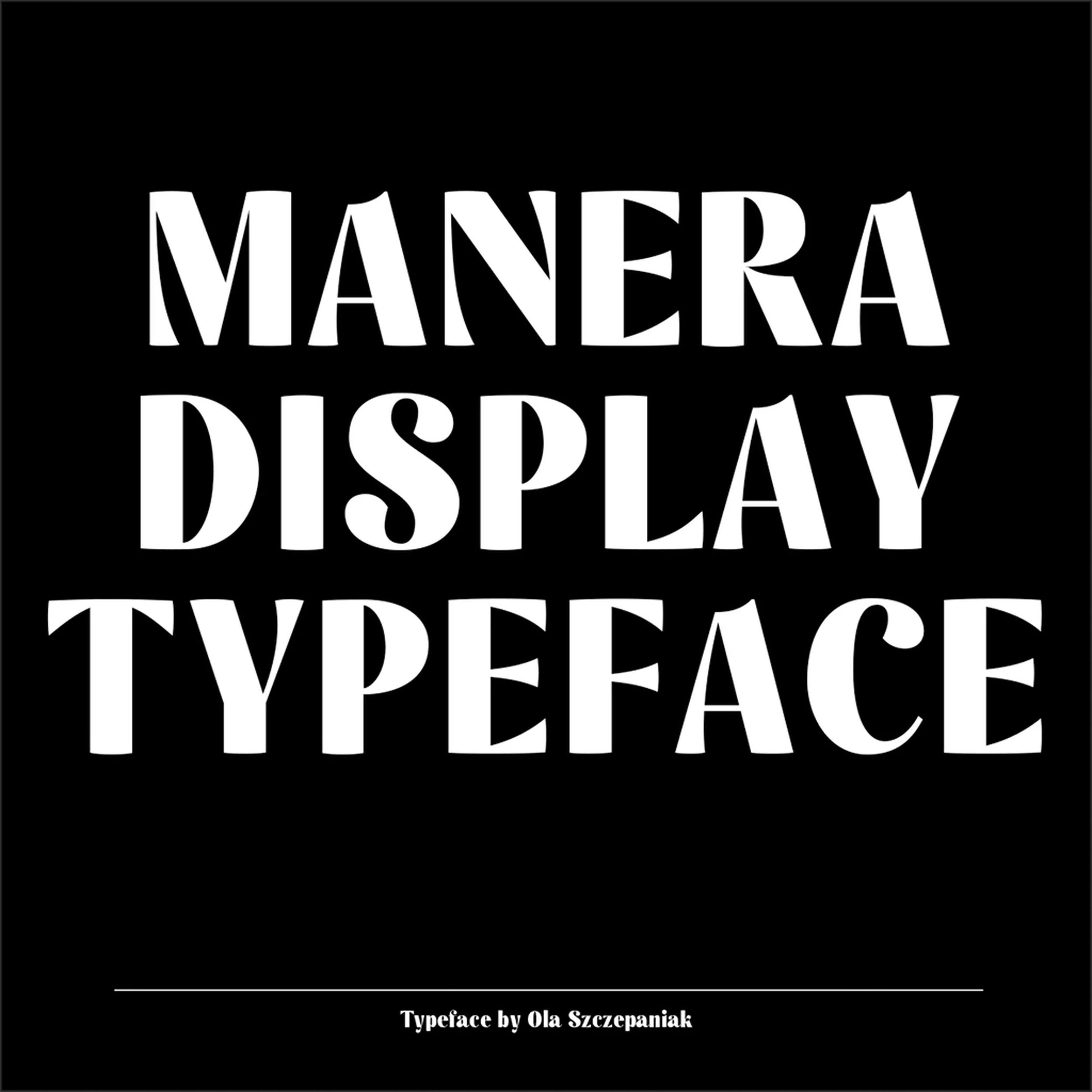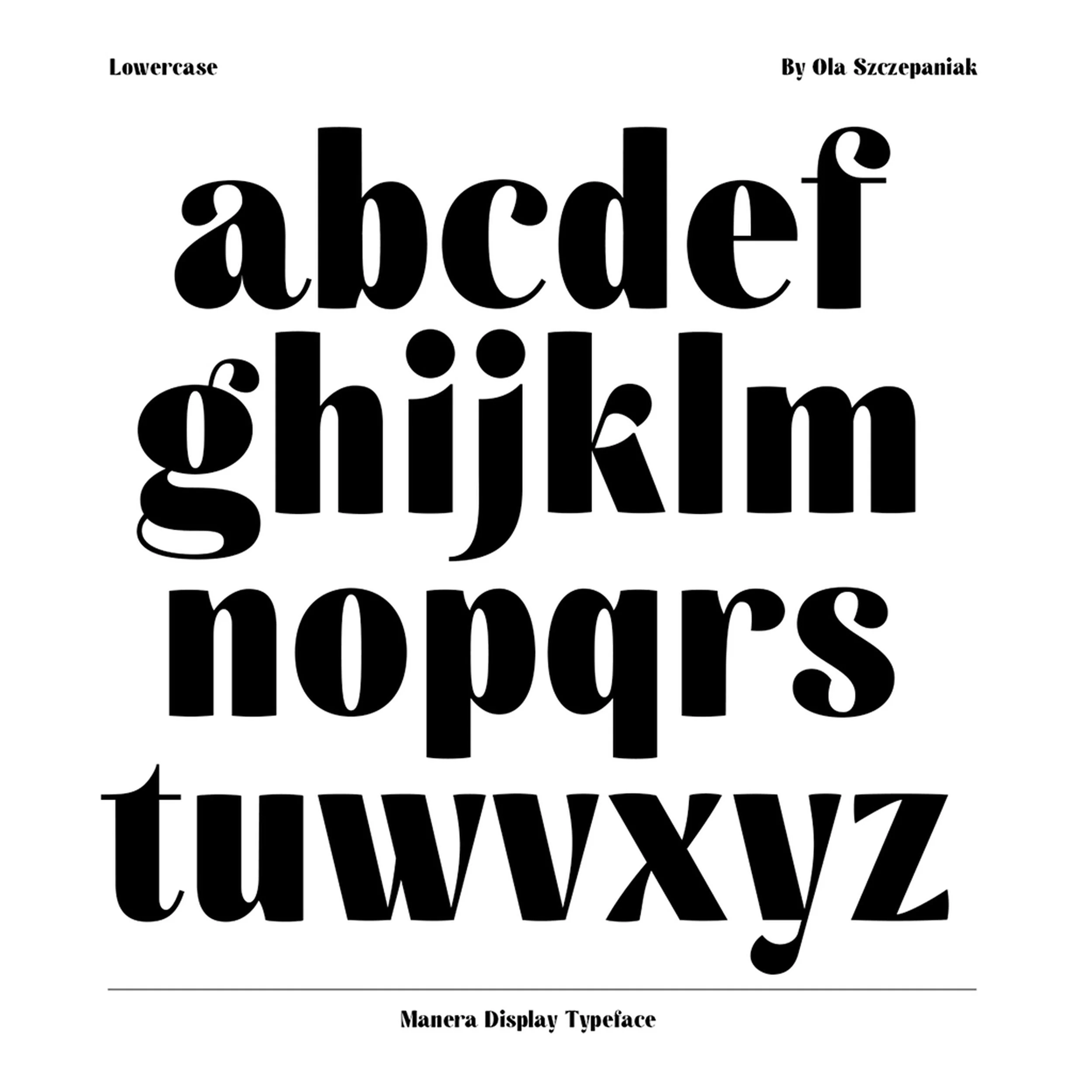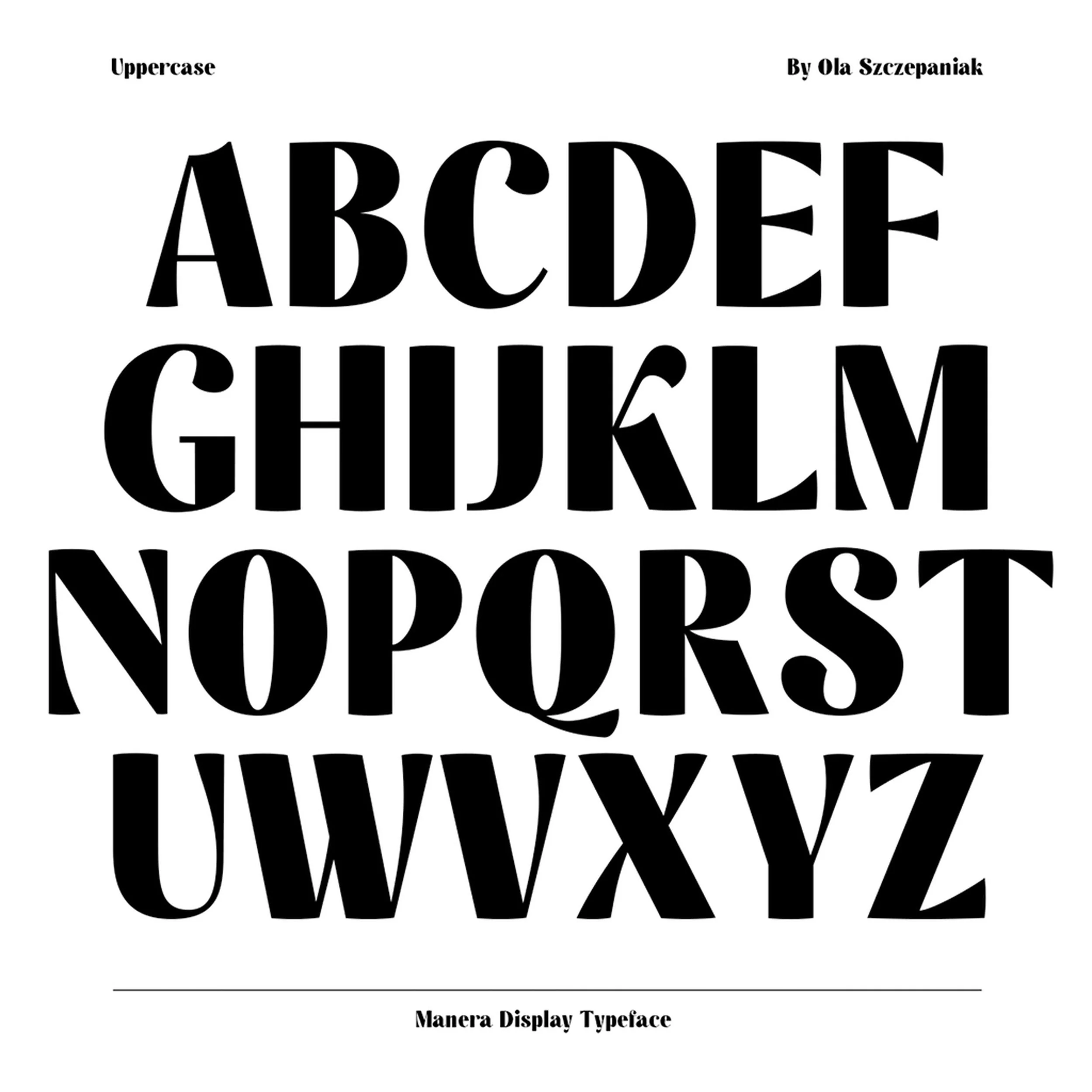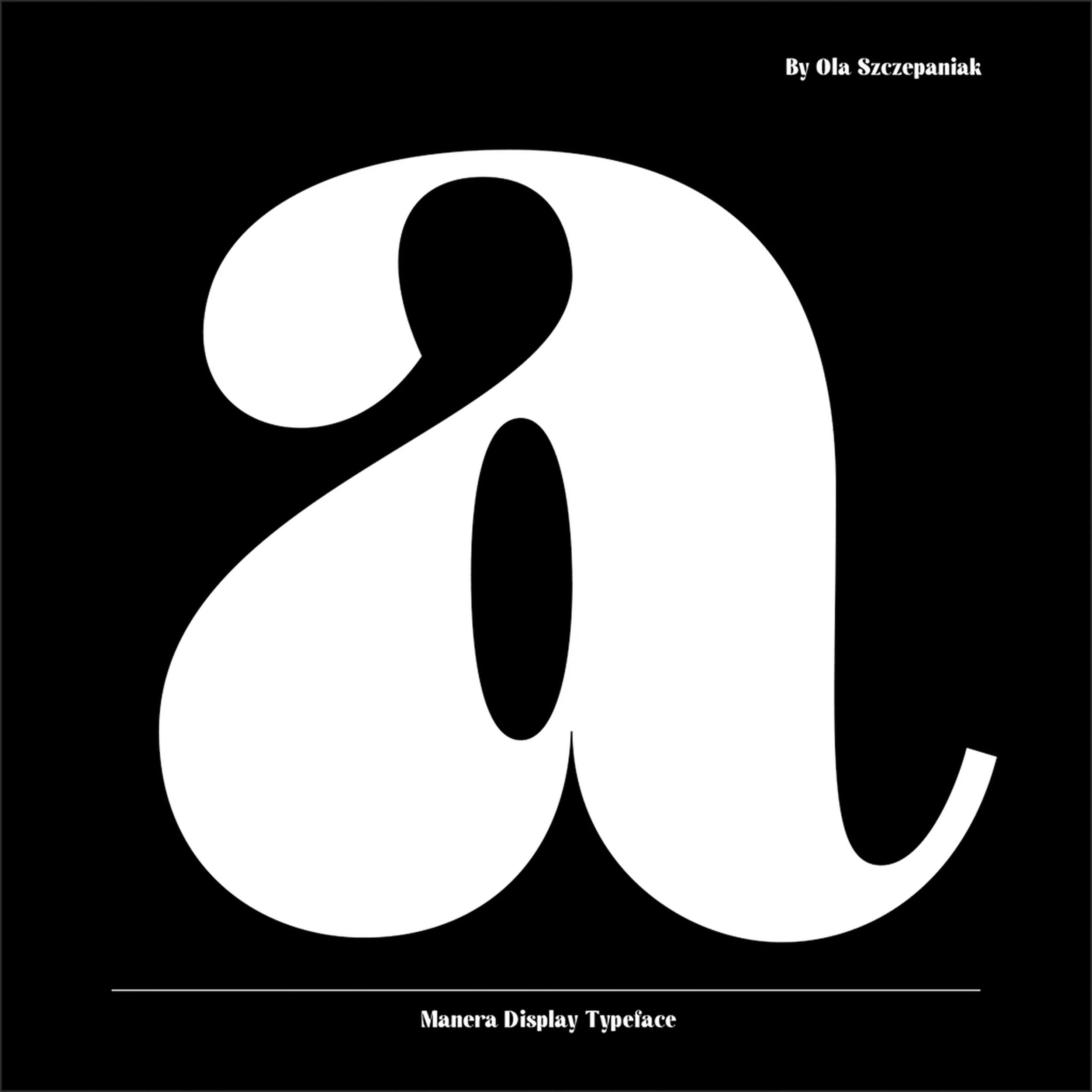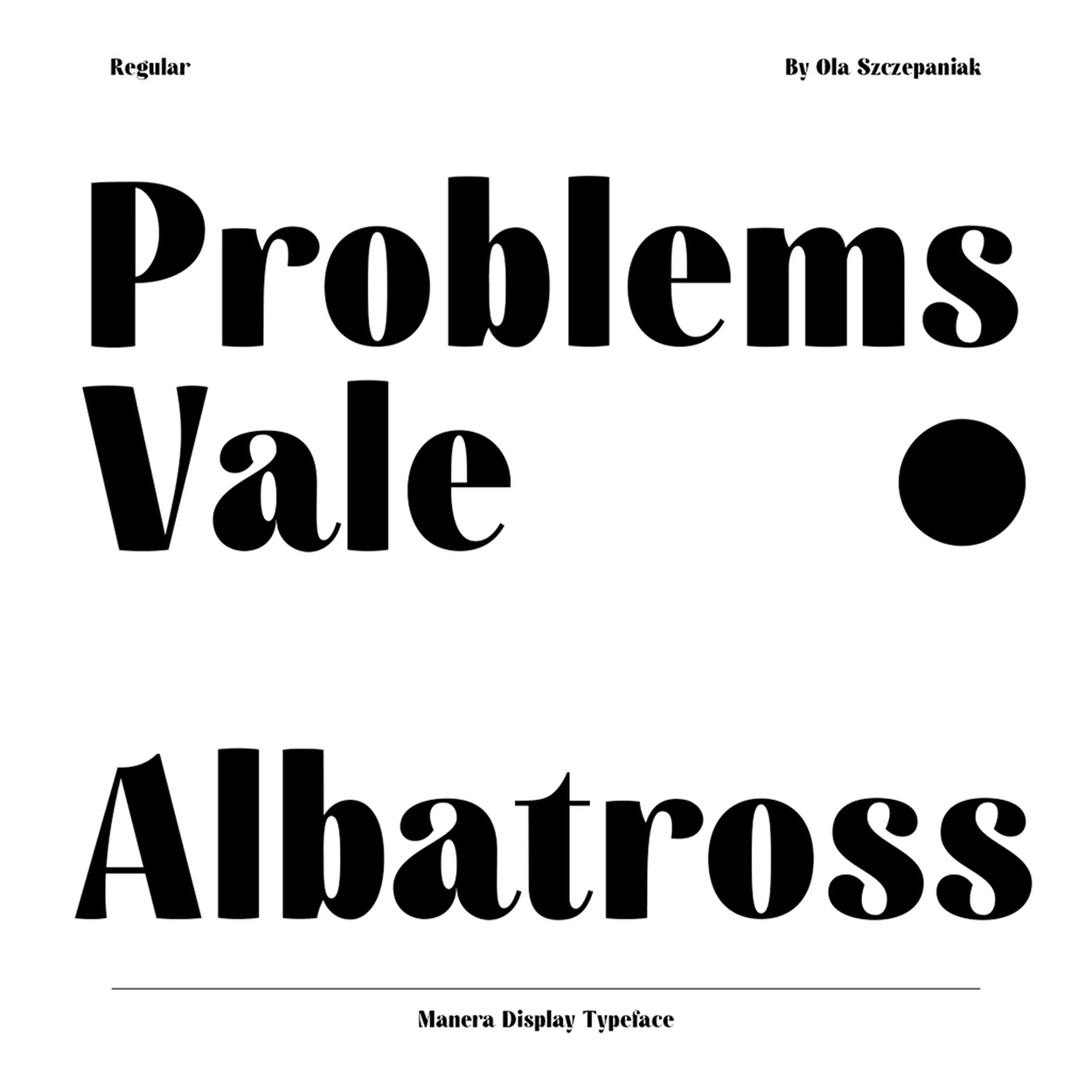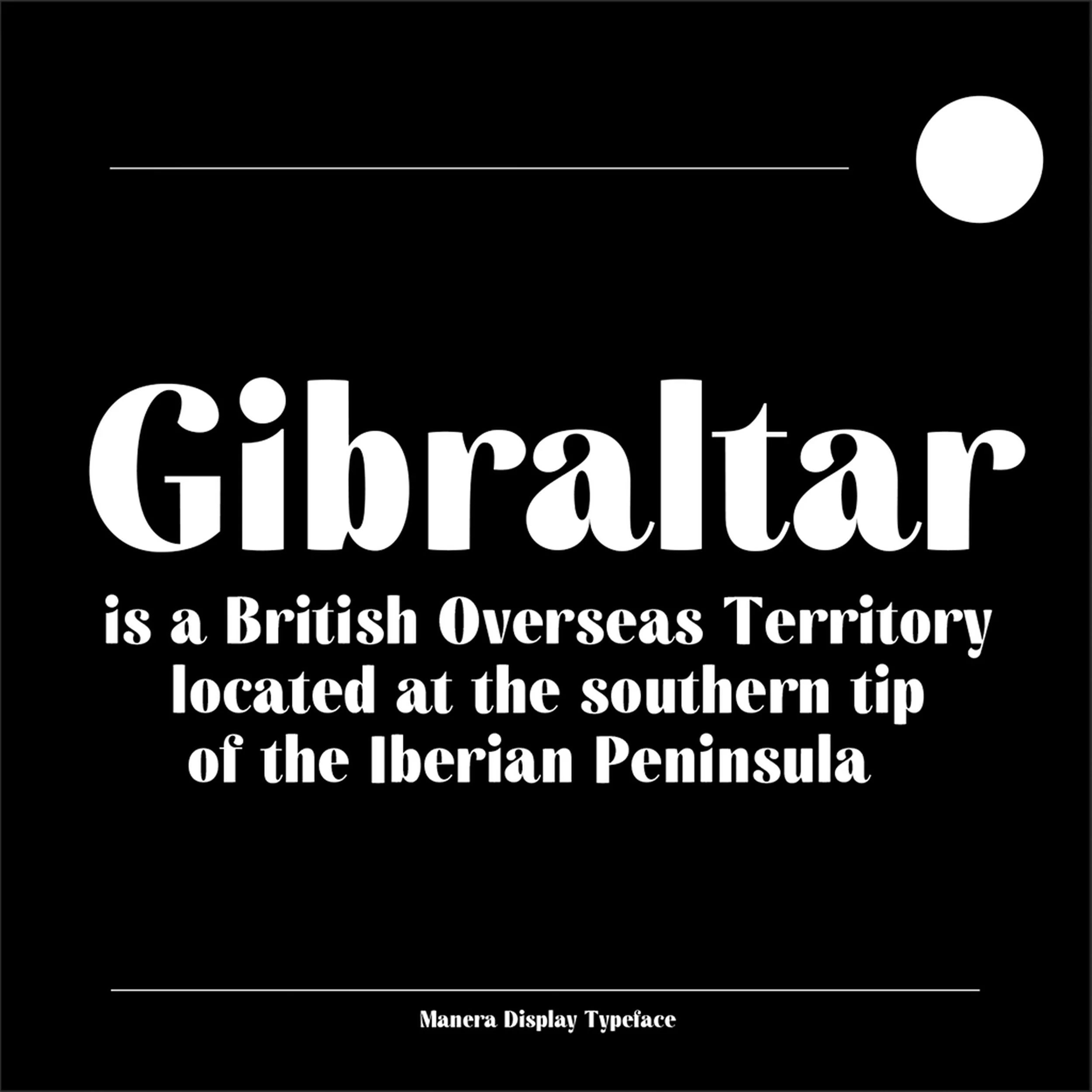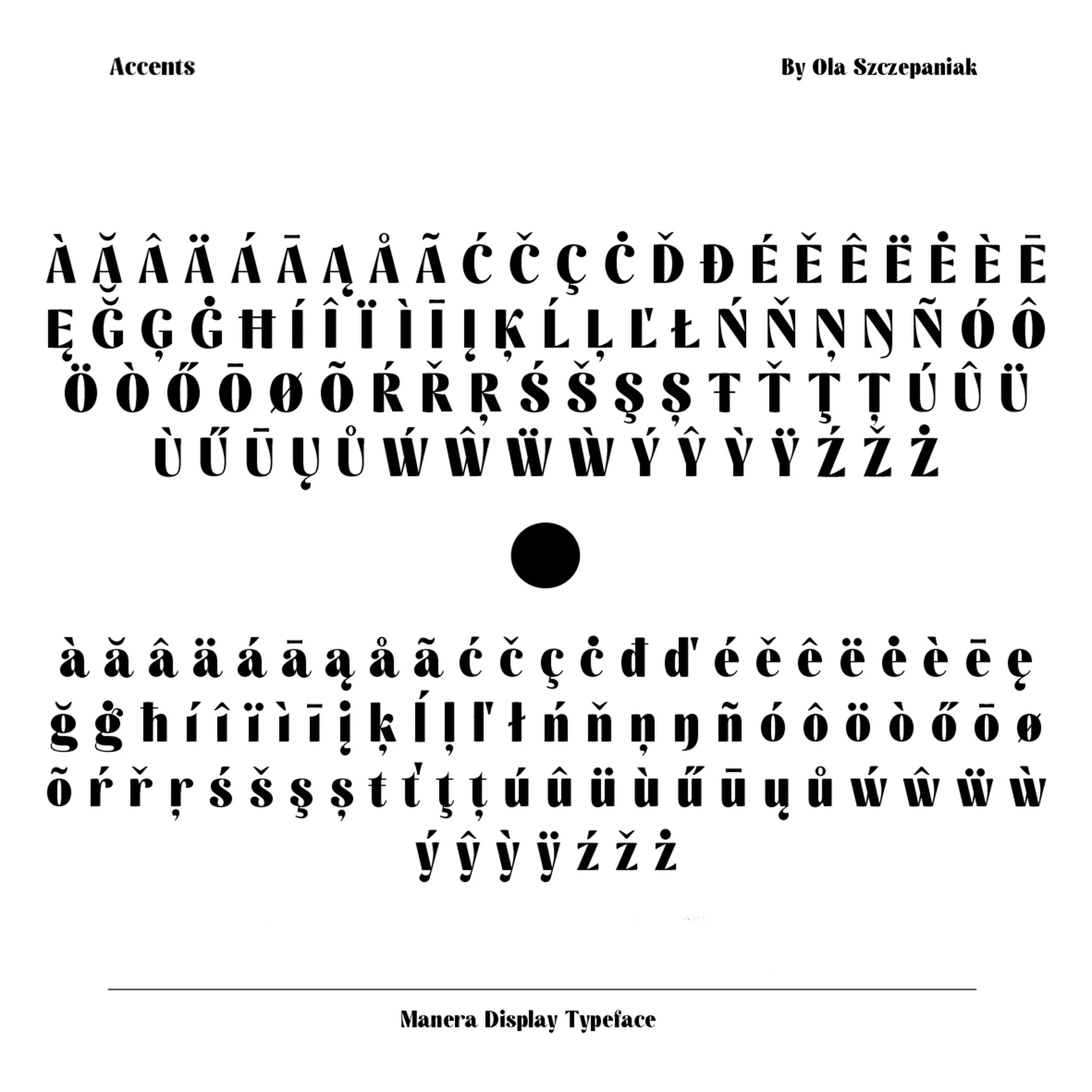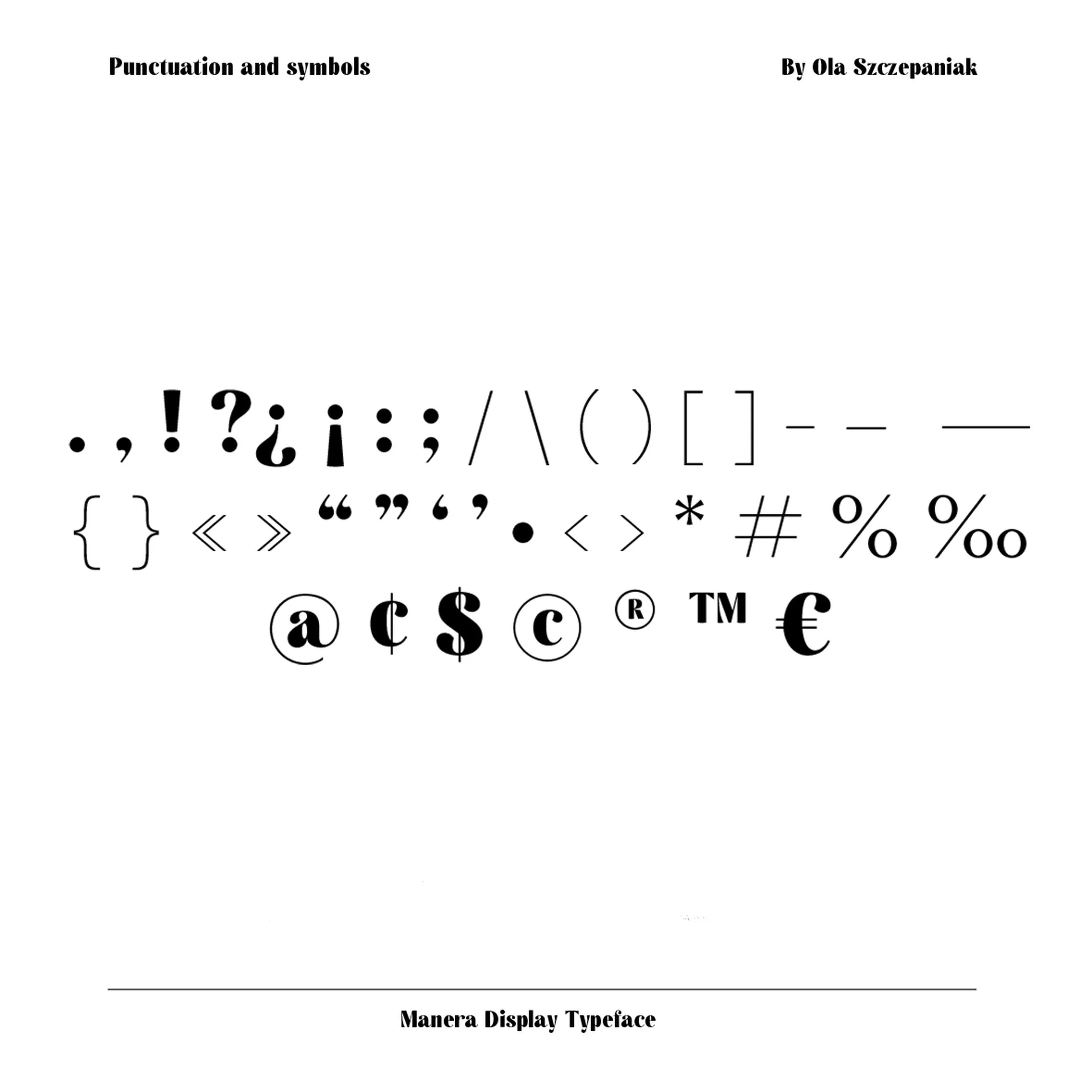
Manera
Manera is a sophisticated display typeface distinguished by its striking contrasts and refined elegance. Ideal for headlines and equally adept in longer text settings, Manera seamlessly blends aesthetic appeal with readability. With its meticulously crafted letterforms, Manera exudes a timeless charm that captivates in both print and digital formats.
Manera
Manera is a sophisticated display typeface distinguished by its striking contrasts and refined elegance. Ideal for headlines and equally adept in longer text settings, Manera seamlessly blends aesthetic appeal with readability. With its meticulously crafted letterforms, Manera exudes a timeless charm that captivates in both print and digital formats.